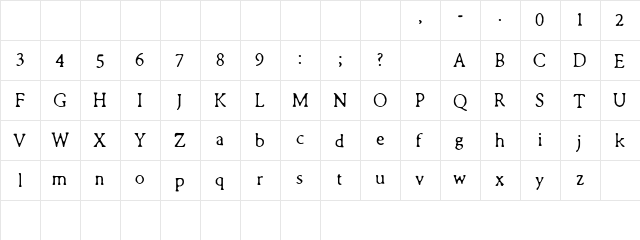
CF Remington Typewriter Regular
| Foundry | Cloutierfontes |
| Designer | Steve Cloutier |
Design Context for CF Remington Typewriter Typeface
CF Remington Typewriter uses fixed-width spacing throughout, giving it the structured, systematic character associated with coding environments and technical documentation.
A natural fit for code editors, technical documentation, developer-focused branding, and terminal-inspired UI.
Pro Tip: Pair CF Remington Typewriter with a proportional sans for UI contexts where code-style labels and regular body copy need to coexist.